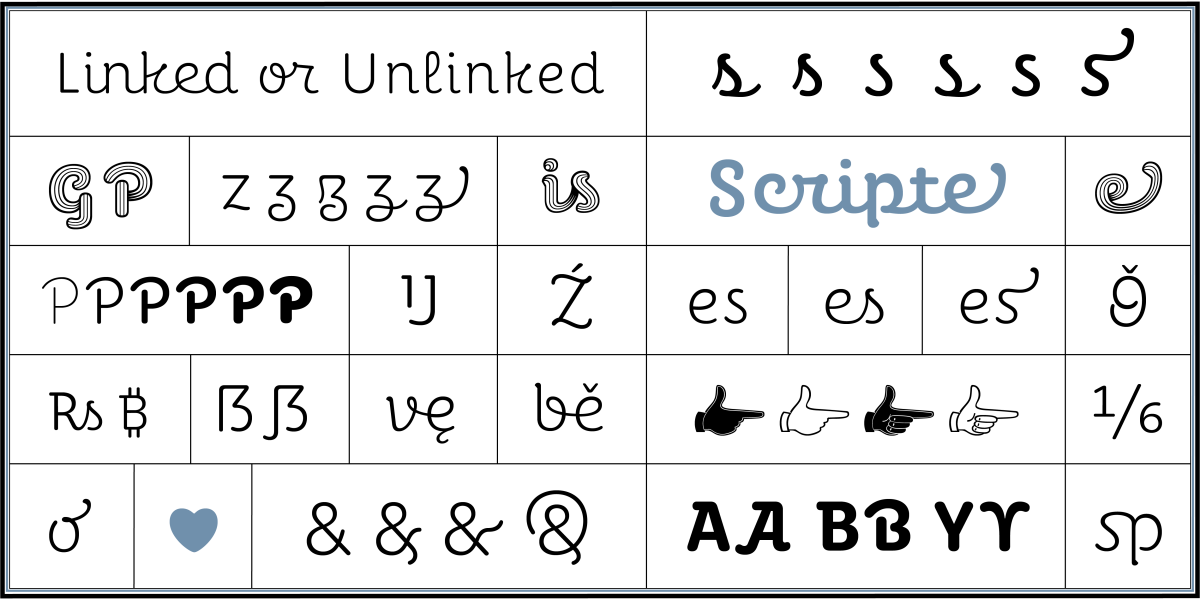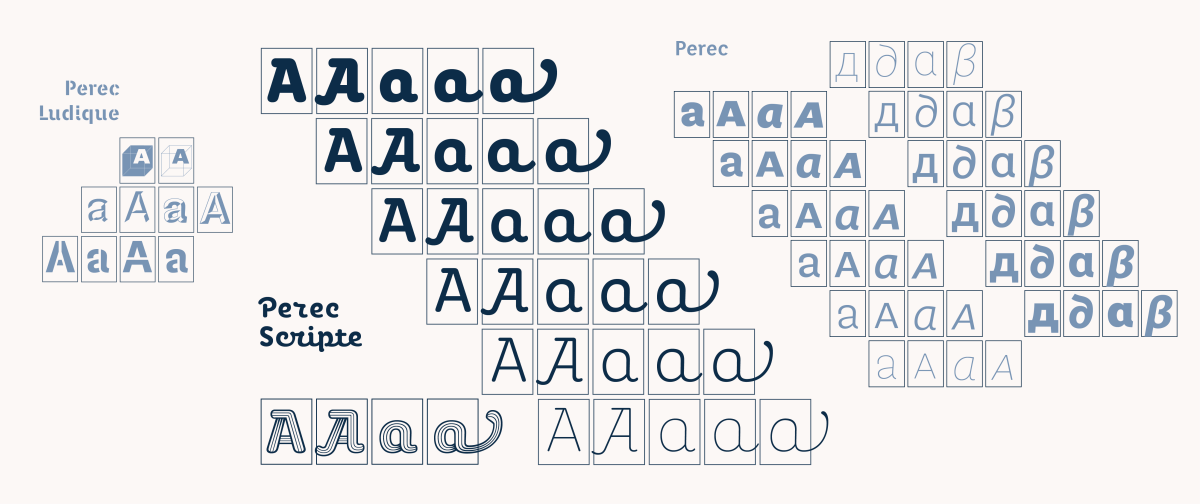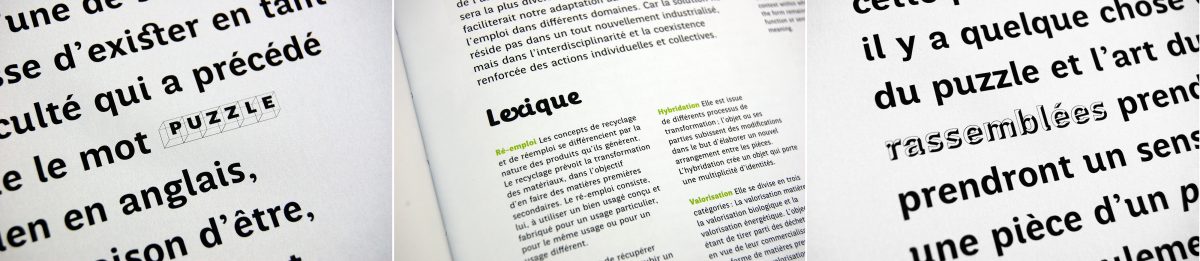
Why a script font?
Given the variegated nature of Georges Perec’s work, from the outset I was seduced by the idea of a family of multiple styles that, while coming from divergent typographic traditions, could be combined to enrich the same page. Stylistically extending the Perec system would not have felt complete without a script font, because a script is one of the most unlikely styles to relate to a sanserif grotesque. Paying homage to Georges Perec meant taking on the least comfortable challenges 1, such as designing a script font that could be combined in text with Perec’s other fonts with harmony and aesthetic coherence. Hopefully, that would also bring some sense of liveliness to the text. 2
Naturally, apart from the search for stylistic coherence of the new Scripte with the rest of the Perec family, this script typeface achieved its own design argument, developed as a family and earned its own place.
(caption: First uses and style combinations of the Perec with the Perec Ludique and the Perec Scripte, in two French magazines: Azimuts (above), made by students of the Saint-Étienne school of art and design, and Livraison (below), a contemporary art magazine from Strasbourg.)
Taking a script font seriously
Handwritten fonts (wrongly called script) are a genre almost always underestimated in the field of serious typography. Some fellow designers to whom I showed my Perec Scripte progress were surprised to see that I was making a script, considered a less serious style. It is clear that their more “casual” tone makes them more suitable for ephemeral, circumstantial, informal uses, typically where a more relaxed tone is appropriate. In fact, I have always loved store signs with script style letters, especially if, while trying to evoke an existing font, it remains half hidden under the personal interpretation of the sign maker.
Store and street signs in script styles with personality, captured in different places in Europe and Mexico. Photos: Loche
Handwritten or script typefaces are very old, perhaps the most famous (although not at all successful) is the Civilité or “lettre françoise” that Robert Granjon engraved in Lyon in 1562. Inspired by the Ronde hand of his time and with the idea of offering a supposedly “national” style as a French alternative to the Italian cursive, the Roman and the Germanic (Gothic) letters. But although the style was quickly copied by other foundries, its use did not transcend in history due to the eccentricity of its forms, which made it difficult to read. However, even being such a personal experiment, the Civilité is one of the most unique milestones in the history of typeface design. Book spreads composed with it, especially those printed by Granjon himself, are of a high artistic level. 3
Tell me which tool you use
A useful way to classify script or handwritten typefaces is according to the tool (whether real or intellectual) with which they were drawn. Thus, there are script fonts that evoke the flat-tipped pen, the brush, the copperplate burin, the ballpoint pen.
Lydian Cursive by Warren Chappell, ATF 1938.
Robert E. Smith’s well-known Brush Script, ATF 1942.
Matthew Carter’ Snell Roundhand, Linotype 1965. This etiquette font comes in three different weights but the bonding strokes are kept thin.
Well-known script fonts, whose aesthetics respond to the instruments that were used to trace them: Lydian Cursive responds to the flat-tipped pen, Brush Script to the brush, Snell Roundhand to the burin, and Justlefthand to the ballpoint pen.
Upright cursive
However, if my new script was to be combined in text with Perec’s original grotesque version, eccentricities and overly vernacular elements had to be set aside. The design that emerged naturally was a vertical or upright cursive, rather rounded and rather geometric. Vertical italics also have their history.
A modern upright cursive is Flora, by Gerard Unger, ITC 1984, in this case with a slight inclination with respect to the vertical axis.
Linked and unlinked
Another of the formal challenges of a script (today and always) is the possibility of linking the letterforms to each other, to better evoke handwriting. In the days of metal type, most of the fonts of this genre opted for disconnection, or for a suggested connection, so to speak, in order to avoid the problem of the connecting stroke meeting the next character.
Roger Excoffon based his Mistral font (1953) on his own handwriting. In this image he compared the natural irregularity of handwriting in terms of slants of strokes and heights of joints among letters (above) with the need to order and standardize slants and joints in a typeface (below). Source: Sandra Chamaret et al, Roger Excoffon et la Fonderie Olive.
Taking the style seriously I think meant to me that every word written in this font should look like a logo, balanced, emphatic, beautiful. Indeed, “every word should look like a logo” is a basic premise of every type designer. However, when dealing with a style in which letters can actually connect or disconnect with each other, everything became much more complex. During the design process I identified about three forms of interrelationship between the signs:
—complete connection, as in a handwritten cursive;
—complete disconnection, as in a block letter, which was to offer greater legibility; and
—an intermediate style in which letterforms could automatically connect and disconnect based on a pre-written code to always achieve the best visual result. The latter required careful planning of the font’s behavior, based on a mapping of all possible letter concatenations. That was the beginning of hell.
- Naturally, the greatest of personal challenges here would be the typographic setting of Georges Perec’s great opus: Life: A User’s Manual (La Vie Mode d'Emploi) using the Perec typefaces. ↩